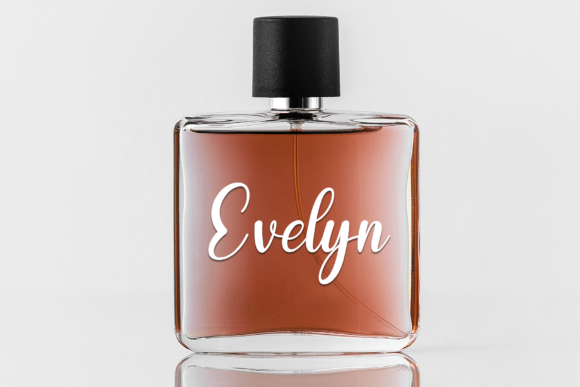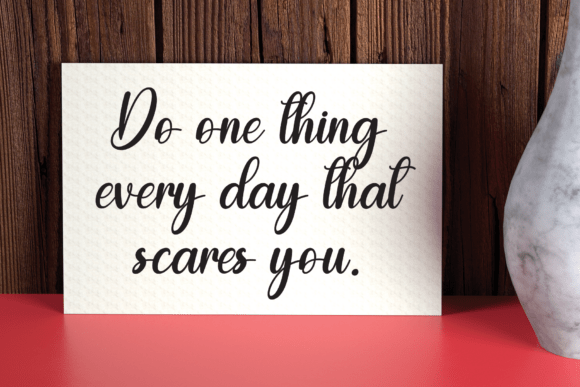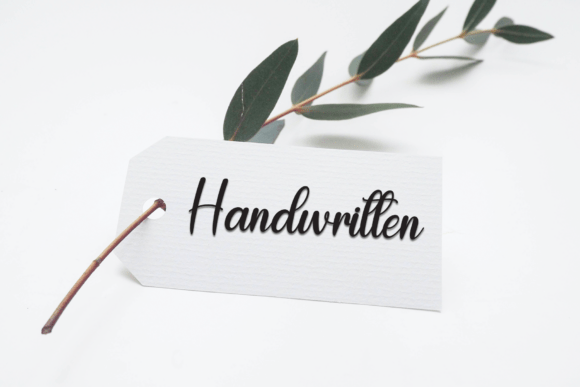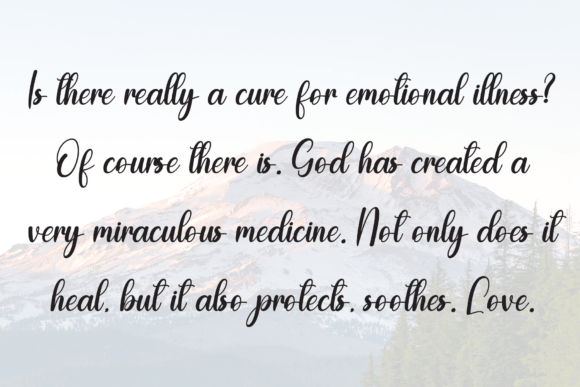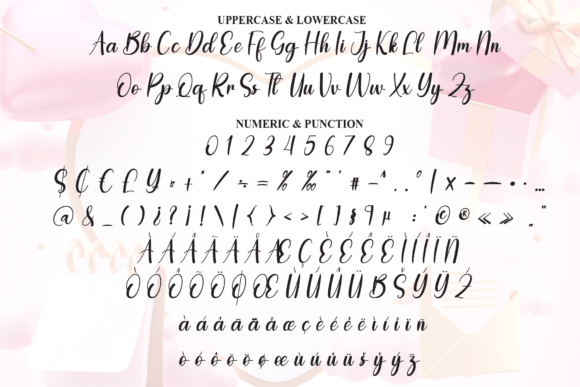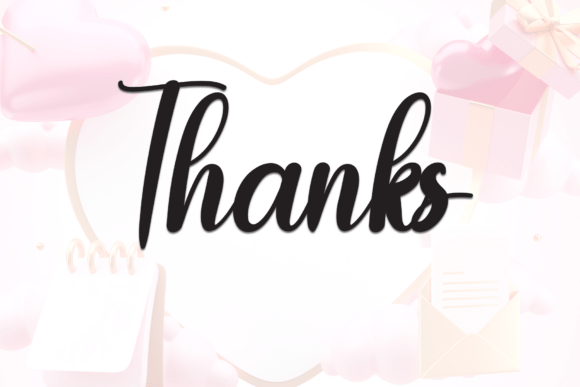
Introducing Birthday Valentine Font: Elevate Your Designs with Artistic Flair
Are you looking for a font that adds a touch of sophistication and creativity to your designs? Look no further than the Birthday Valentine Font. This stylish script font is perfect for designers and crafters who want to make a statement with their work. With its fluid brush strokes, dynamic curves, and expressive letterforms, Birthday Valentine Font is sure to capture the essence of hand-painted calligraphy with a modern twist.
The Characteristics of Birthday Valentine Font
So, what makes Birthday Valentine Font so special? Here are a few of its key characteristics:
- Fluid Brush Strokes: The font features fluid brush strokes that give it a natural, hand-painted look.
- Dynamic Curves: The dynamic curves of the font add a touch of elegance and sophistication.
- Expressive Letterforms: Each letterform is uniquely designed to convey a sense of artistic flair.
Uses for Birthday Valentine Font
Birthday Valentine Font is incredibly versatile and can be used for a wide range of design projects. Here are a few ideas to get you started:
- Logos: Use Birthday Valentine Font to create a unique and memorable logo for your business or brand.
- Invitations: Add a touch of elegance to your invitations with this beautiful script font.
- Packaging: Use Birthday Valentine Font to create eye-catching packaging that stands out on store shelves.
- Social Media Graphics: Add a creative and sophisticated touch to your social media graphics with this font.
Why Choose Birthday Valentine Font?
So, why should you choose Birthday Valentine Font for your design projects? Here are a few reasons:
- Visual Impact: The font delivers a strong visual impact that is sure to grab attention.
- Versatility: Birthday Valentine Font is incredibly versatile and can be used for a wide range of design projects.
- Creative and Sophisticated: The font adds a creative and sophisticated touch to any design.
Tips for Using Birthday Valentine Font
Here are a few tips for using Birthday Valentine Font in your design projects:
- Use it as a Headline Font: Birthday Valentine Font is perfect for use as a headline font, where its bold and expressive letterforms can really make an impact.
- Pair it with a Simple Font: Pair Birthday Valentine Font with a simple font to create a striking contrast that adds visual interest to your design.
- Experiment with Colors: Don’t be afraid to experiment with different colors and textures to add depth and interest to your design.
In conclusion, Birthday Valentine Font is a stylish script font that is perfect for designers and crafters who want to add a touch of artistic flair to their designs. With its fluid brush strokes, dynamic curves, and expressive letterforms, it captures the essence of hand-painted calligraphy with a modern twist. Whether you’re creating logos, invitations, packaging, or social media graphics, Birthday Valentine Font is sure to deliver both visual impact and versatility.
Get Creative with Birthday Valentine Font